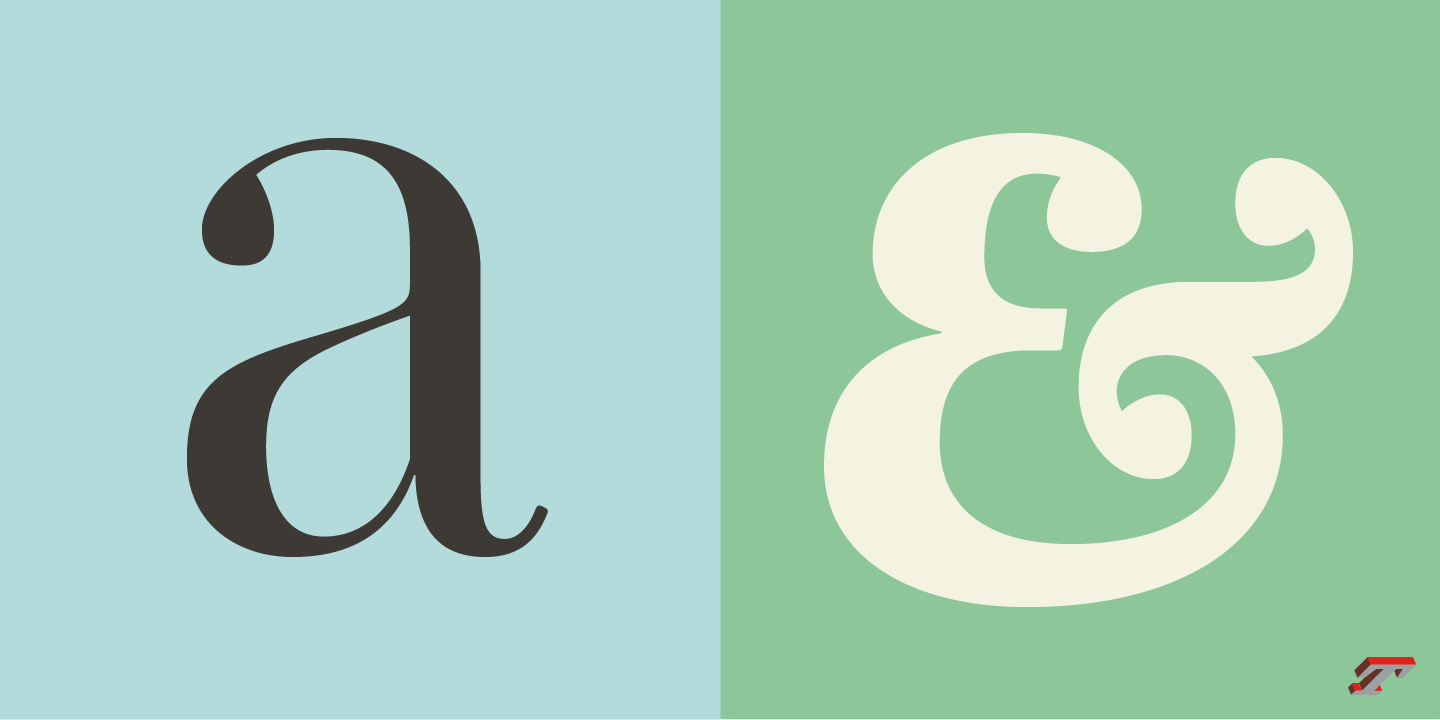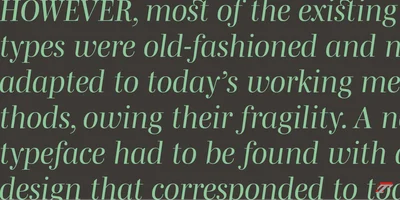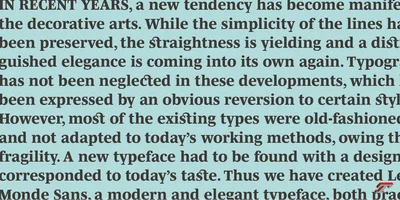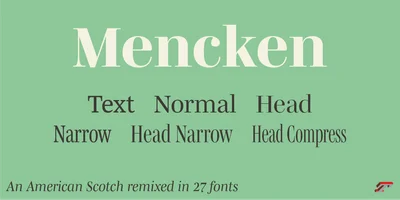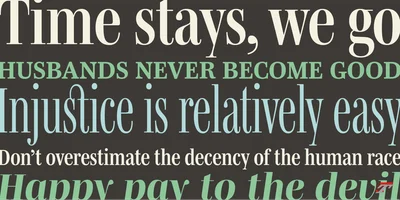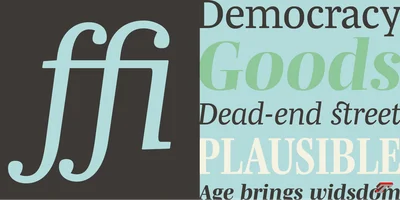
Kepler vs Mencken
Kepler and Mencken are both serif typefaces sharing a editorial foundation. Where Kepler leans transitional, modern, Mencken brings didone, readable. Compare which suits your Editorial project.
69% Similarity
Design overlap:20%
Kepler
Transitional
Modern
Mencken
Didone
Readable
| Feature | Kepler | Mencken |
| Language Support | latin, latin-extended, cyrillic | latin, latin-extended |
| Source | Adobe | Hoefler&Co |
Recommended: Kepler
- transitional, modern design character
- Suited for Branding
- From Adobe
Consider: Mencken
- didone, readable design character
- Suited for Newspapers
- From Hoefler&Co